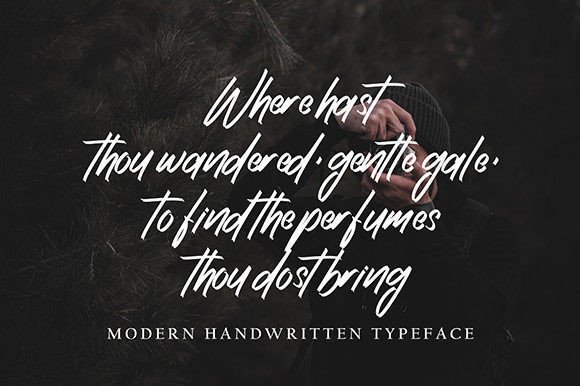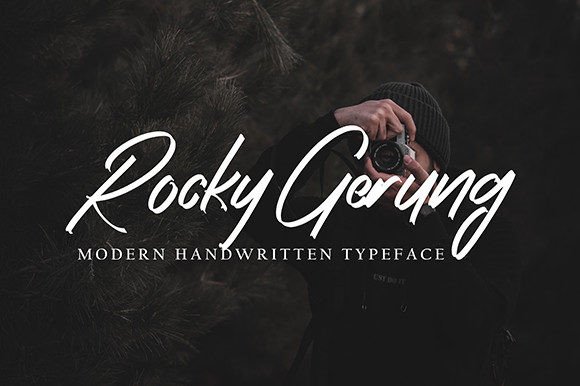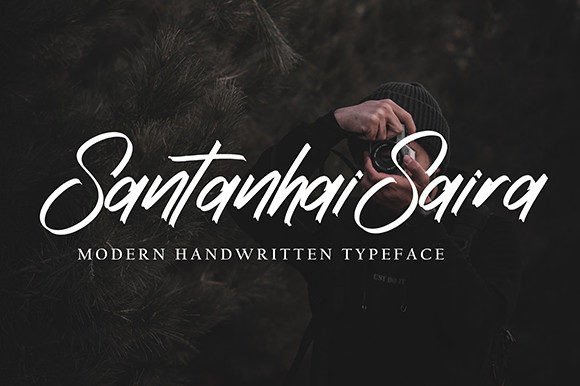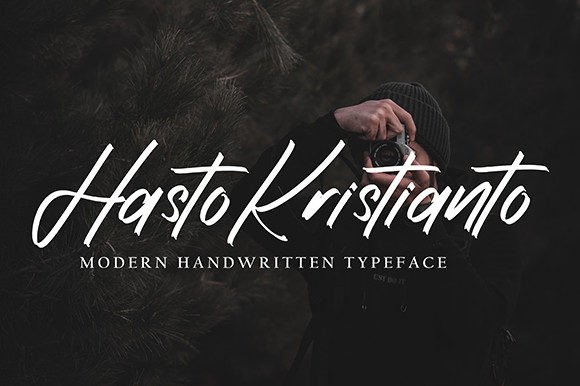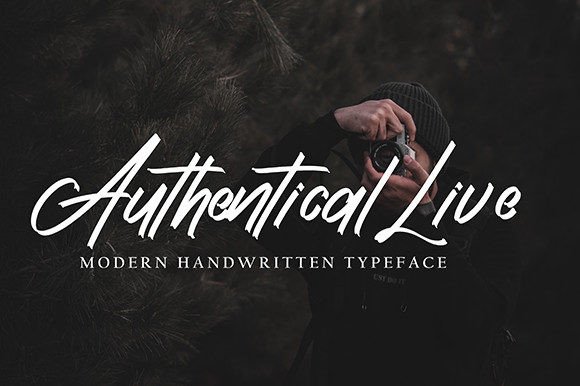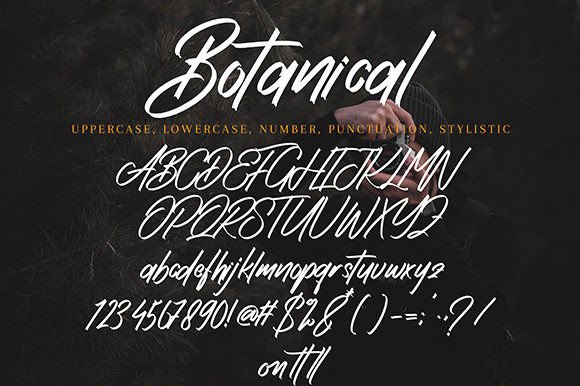
Discover the Beauty of Botanical Font
Have you ever stumbled upon a beautiful, handwritten note that made you smile? Perhaps it was a love letter from a friend or a heartfelt thank-you note from a loved one. Whatever it was, you likely couldn’t help but feel a connection to the handwritten touch. This is exactly what the Botanical Font is designed to evoke – a sense of warmth, elegance, and personality that’s hard to find in modern digital communication.
As a modern handwritten script, the Botanical Font is perfect for any project that requires a customized touch. Whether you’re designing wedding invitations, thank you cards, or quotes, this versatile font is sure to add a touch of natural, stylish charm. For designers, the Botanical Font is a valuable asset, offering endless possibilities for creative expression and adding a unique flair to any design.
Botanical Font Key Features
- Unique Characteristics: The Botanical Font features a natural, hand-drawn feel, with intricate details and subtle flourishes, making it ideal for botanical illustrations, scientific texts, and nature-inspired designs.
Botanical Font Review
As a designer, I was excited to dive into the world of Botanical Font and see what it had to offer. Overall, I found it to be a lovely addition to any design project.
- ✨ High level of detail in the floral elements, which adds a nice touch of realism.
- ✨ The font’s versatility, with a range of styles and weights that can be used for various design projects.
- ✨ The font’s unique and elegant feel, which makes it perfect for designs that require a touch of sophistication.
- ⚠️ The font may be too ornate for some design projects, which could make it difficult to read.
- ⚠️ The font’s complexity may require additional design effort to ensure it is used effectively.
- ⚠️ Some characters may not be fully supported in certain fonts or software.
Overall, I think Botanical Font is a great addition to any designer’s toolkit. While it may have some limitations, its unique style and high level of detail make it a great choice for designers looking to add some elegance to their projects.
For a more natural look, pair the Botanical Font with floral patterns and greenery elements.
For a more intricate design, use the Botanical Font in combination with intricate illustrations and details.
For a more elegant look, pair the Botanical Font with minimalist backgrounds and subtle textures.
The Botanical Font is perfect for:
- Floral-themed packaging and branding.
- Botanical illustrations and artwork.
- Outdoor and garden-themed events.
Alternatives to Botanical Font
Carolyna Pro is a modern script font with a mix of elegance and sophistication. It’s ideal for use in branding, packaging, and advertising where a touch of luxury is desired.
Compared to Botanical Font, Carolyna Pro has a more refined and polished look, making it suitable for high-end designs. However, it lacks the whimsical feel of Botanical Font, which is better suited for more playful and creative projects.
Great Vibes is a beautiful, handwritten font with a relaxed and casual feel. It’s perfect for use in editorial design, social media, and marketing materials where a friendly tone is desired.
Unlike Botanical Font, Great Vibes has a more laid-back and approachable look, making it ideal for everyday designs. However, it lacks the sophistication and elegance of Botanical Font, which is better suited for more formal and professional projects.
For optimal readability, we recommend using a font size between 12-14 points, with a line height of 1.2-1.5 times the font size. This will ensure that the text is clear and easy to read, while also maintaining the elegant and natural feel of the Botanical Font.